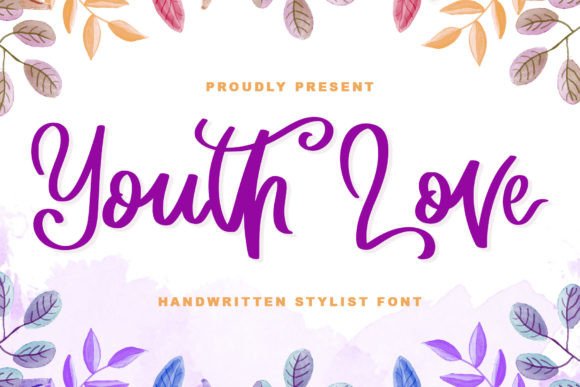
Introducing "Youth Love" — The Font that Ignites Joyful Creations!
Embark on a typographic adventure with "Youth Love," a charming and delightful script font that captures the essence of youthful exuberance and heartfelt emotion. This exquisite font, crafted with meticulous attention to detail by Sakha Design, will transform your creative projects into captivating expressions of art.
With its natural and elegant style, "Youth Love" is the perfect choice for Cricut Joy Cards, adding a touch of whimsy and charm to your personalized greetings. Picture this: your heartfelt words, rendered in the graceful curves and flowing lines of "Youth Love," will dance across the card, conveying your warmest sentiments with an extraordinary flair.
Imagine the delight on your loved ones' faces as they receive cards adorned with "Youth Love." Each letter, meticulously crafted to perfection, exudes a sense of genuine connection and heartfelt affection. The font's inherent beauty will elevate your cards to cherished keepsakes, treasured long after the occasion has passed.
But "Youth Love" is not confined to Cricut Joy Cards; its versatility knows no bounds. This enchanting font lends its charm to a myriad of creative endeavors. Unleash your imagination and let "Youth Love" adorn your invitations, greeting cards, posters, and social media posts, imbuing each project with a touch of magic and heartfelt warmth.
With "Youth Love" as your creative companion, you possess the power to transform ordinary words into extraordinary expressions of art. Each glyph, lovingly designed to convey a sense of genuine emotion, will captivate your audience and leave a lasting impression.